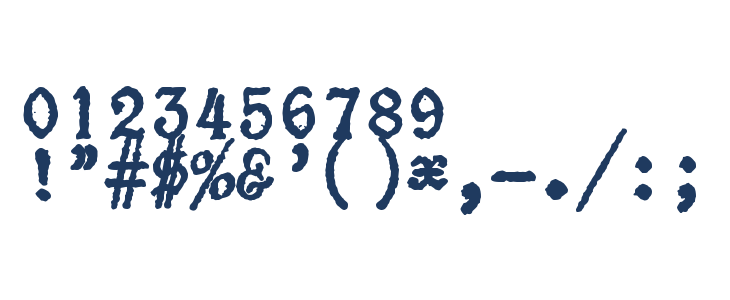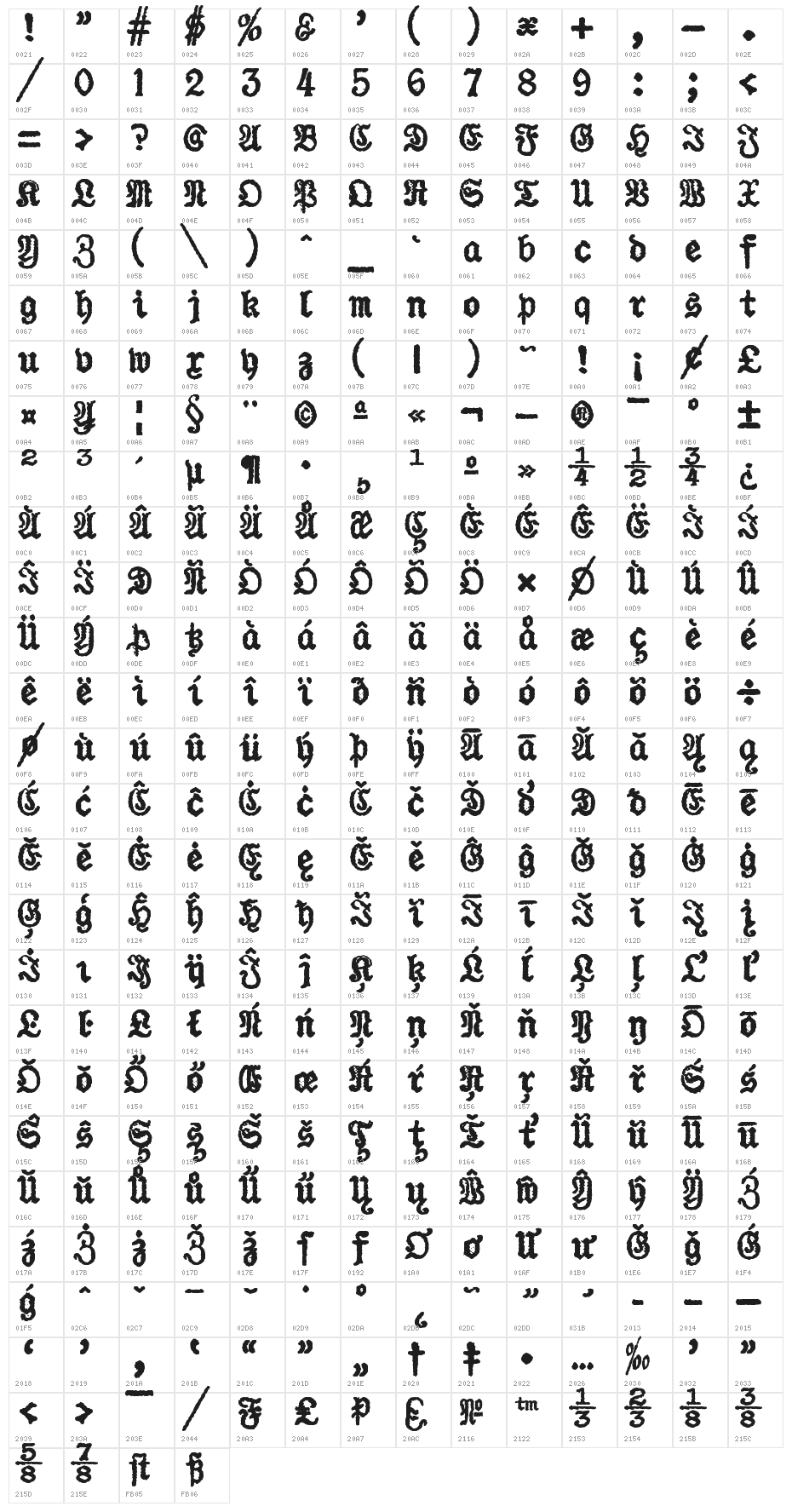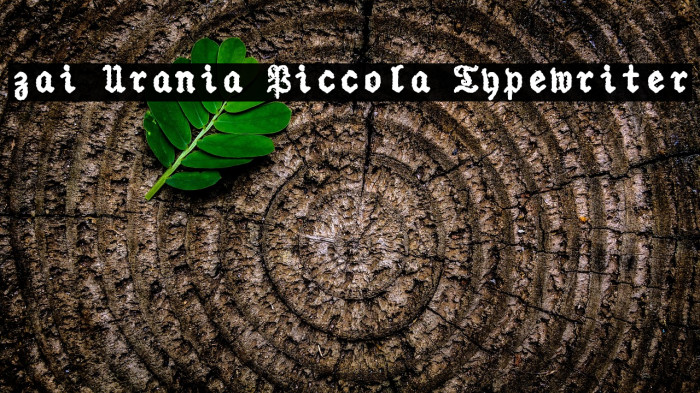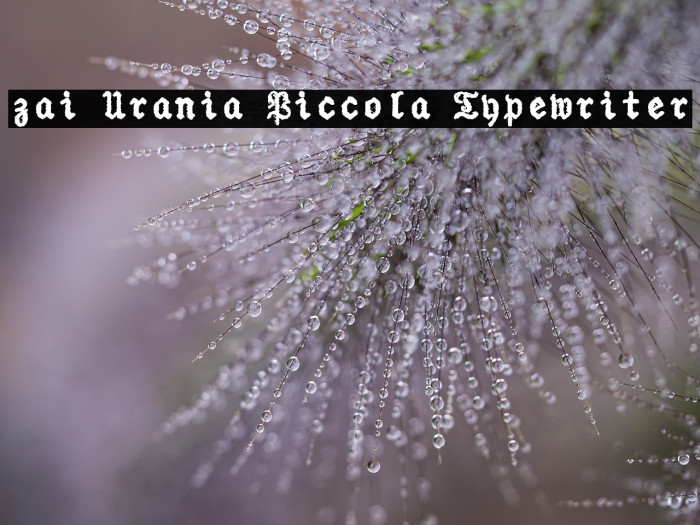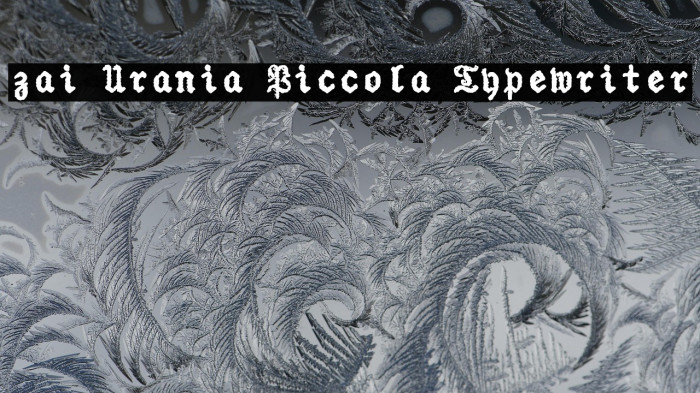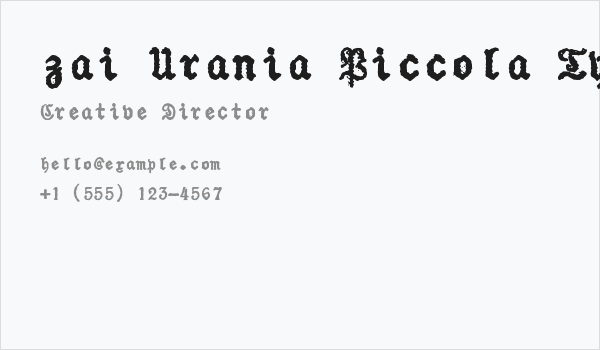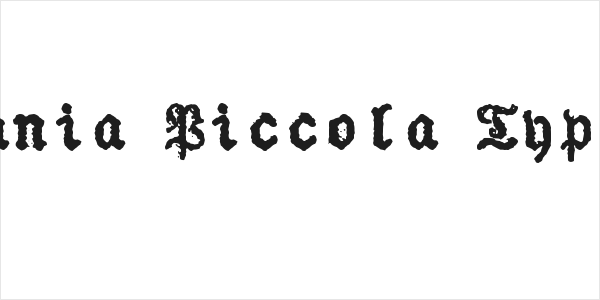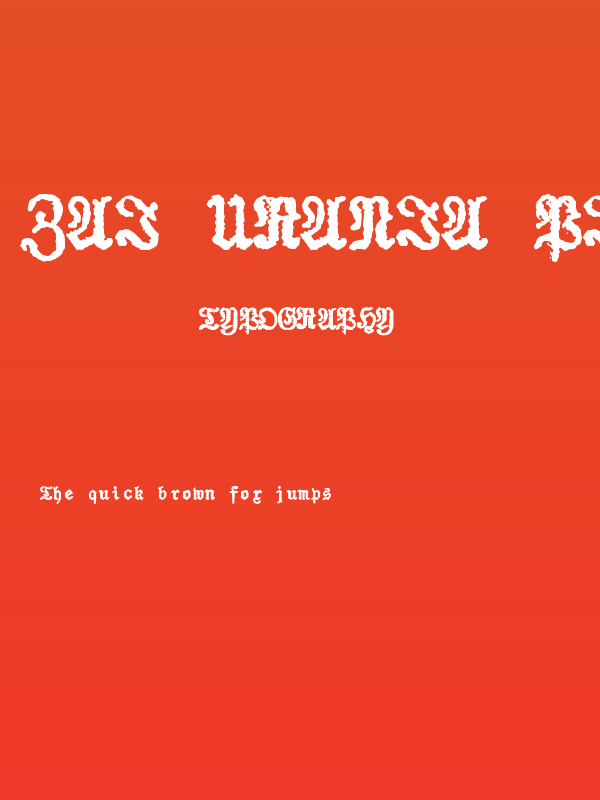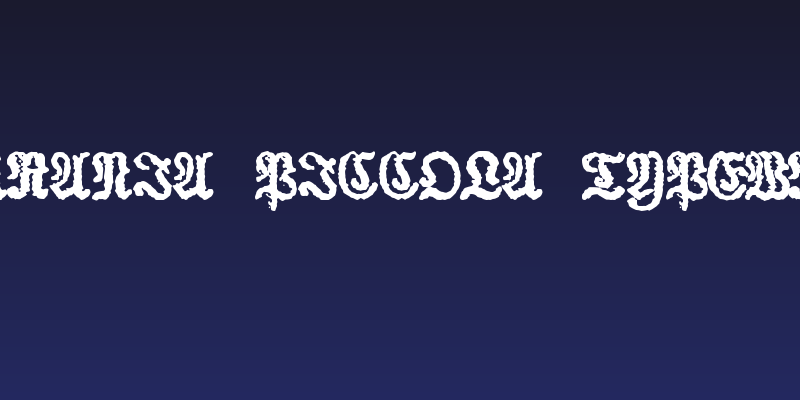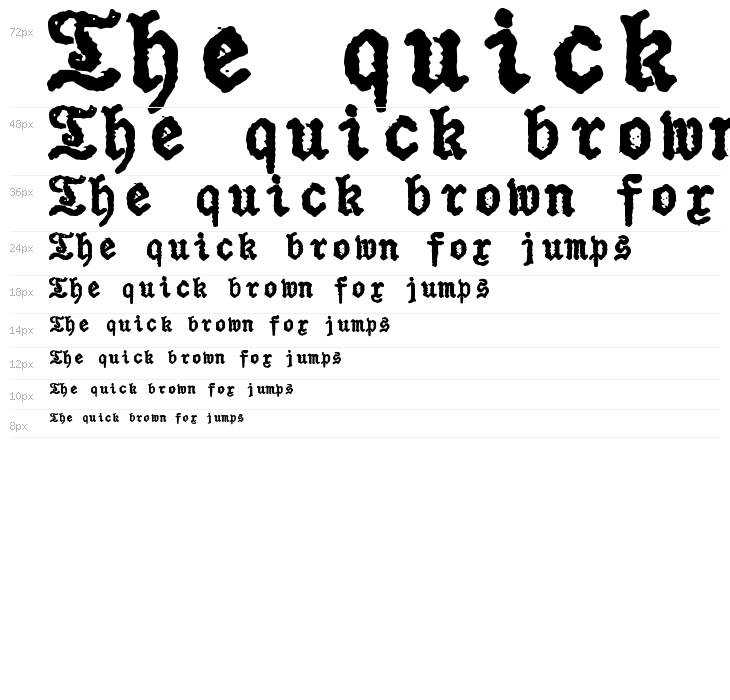
zai Urania Piccola Typewriter Font
zai Urania Piccola Typewriter Description
This font exhibits a bold and intricate design, reminiscent of traditional typewriter styles with a decorative twist. The characters are heavily stylized with ornate details, giving them a vintage and somewhat gothic appearance. The uppercase letters are particularly elaborate, featuring flourishes and embellishments that add to the overall decorative feel. The lowercase letters maintain a similar style but are slightly more subdued, ensuring readability. Numbers and special characters follow the same ornate pattern, making them stand out distinctly. The font's unique style makes it suitable for projects that require a touch of historical or classical elegance.